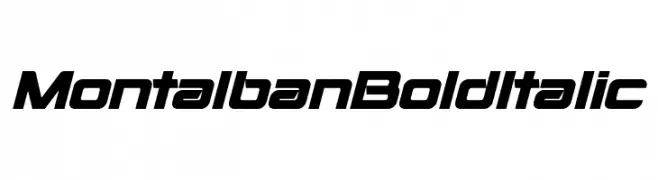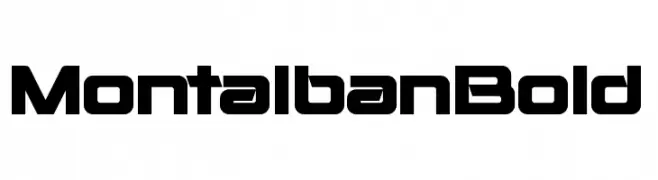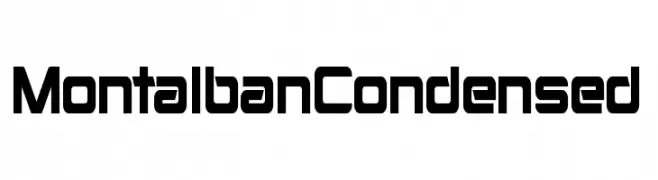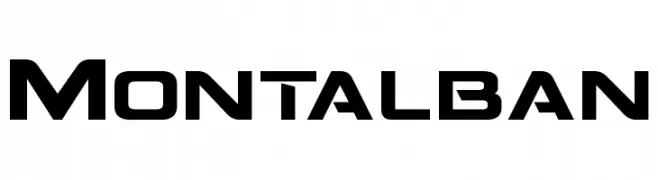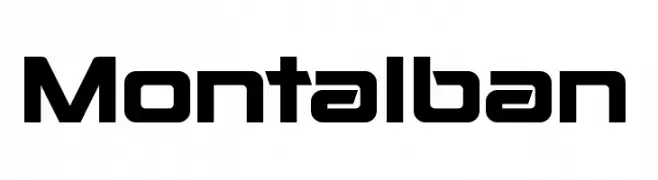
• Monstres de Poche
A decorative, cartoon-style font made of cute monster illustrations.
• Montaga
A classic serif font with elegant, well-balanced strokes and refined character design.
• Montaga-Regular
A classic serif font with elegant and refined letterforms.
• Montalban
A bold, geometric font with a futuristic and modern style.
• Montalban
A bold, modern font with geometric and angular design elements.
• Montalban Bold
A bold, geometric font with a modern and assertive style.
• Montalban Bold
A bold, modern font with geometric shapes and consistent stroke thickness.
• Montalban Bold Italic
A bold, italicized font with a modern and dynamic slant.
• Montalban Bold Italic
A bold, italicized font with a modern, sleek, and slightly condensed style.
• Montalban Condensed
A bold, geometric, and condensed font with a modern and futuristic style.